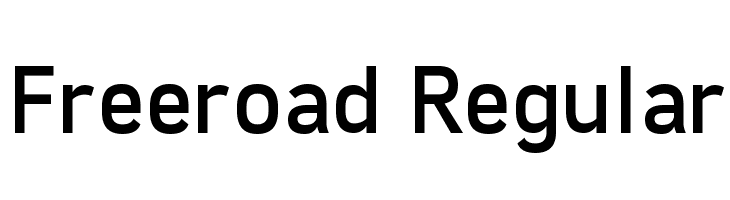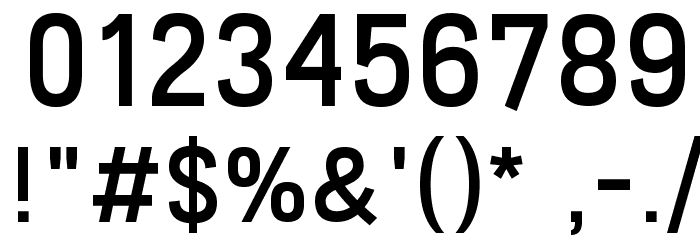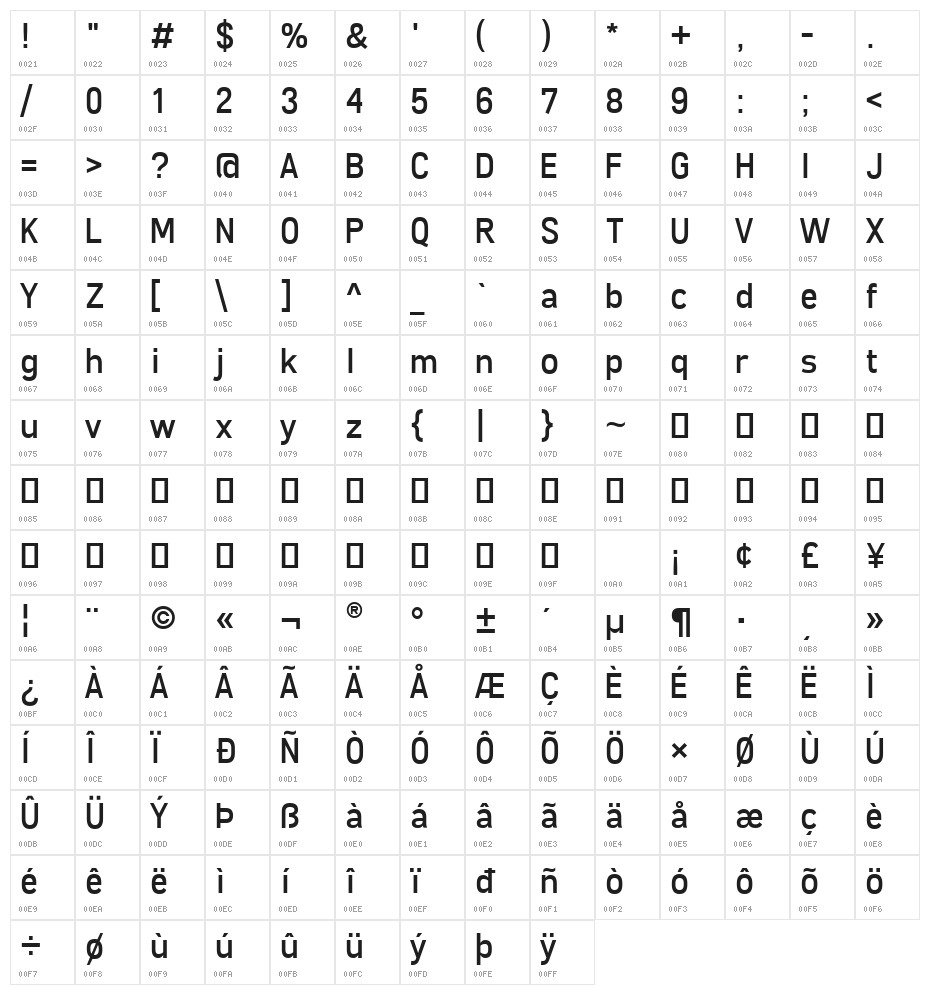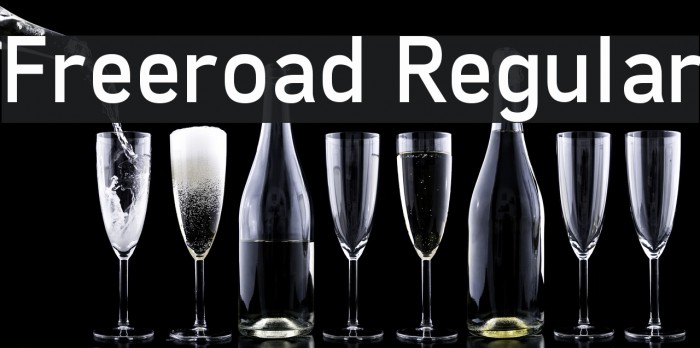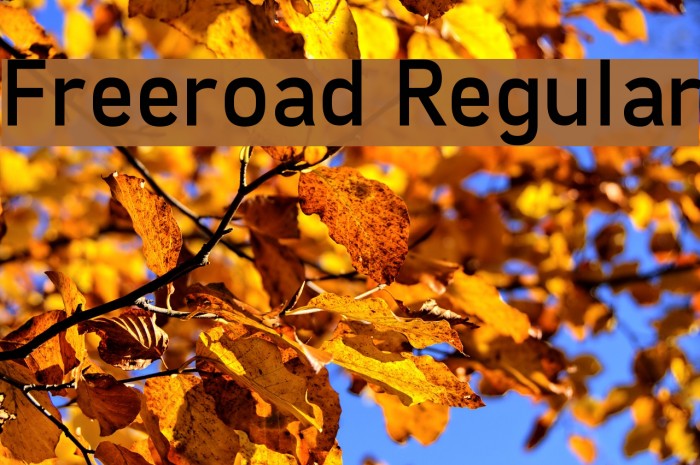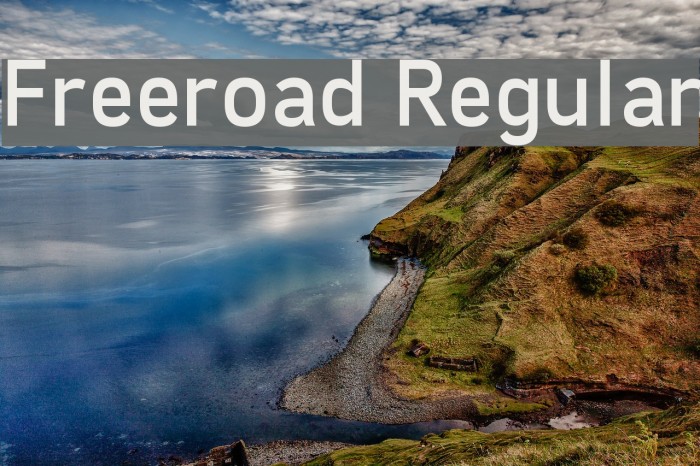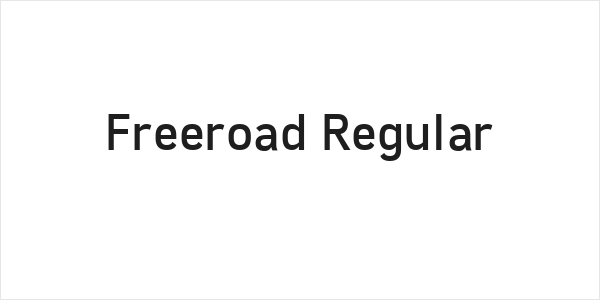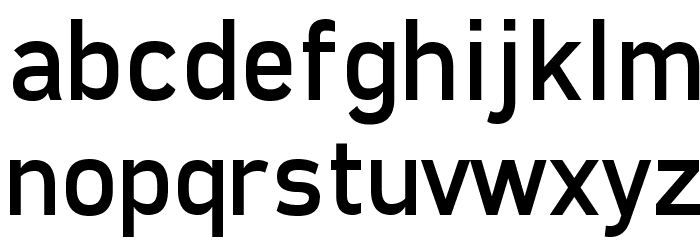
Freeroad Regular Font
Freeroad Regular Description
This font features a clean and modern sans-serif design, characterized by its straightforward and geometric letterforms. The uniform stroke width and absence of serifs give it a contemporary and minimalist appearance, making it highly legible across various sizes. The uppercase and lowercase letters maintain a consistent style, with rounded edges that soften the overall look. The numerals and special characters are designed to complement the alphabet, ensuring a cohesive visual experience. This font is versatile and suitable for a wide range of applications, from digital interfaces to print media.
| Proposed Projects | Ideal for web design, branding, advertising, and editorial layouts due to its clarity and modern aesthetic. |